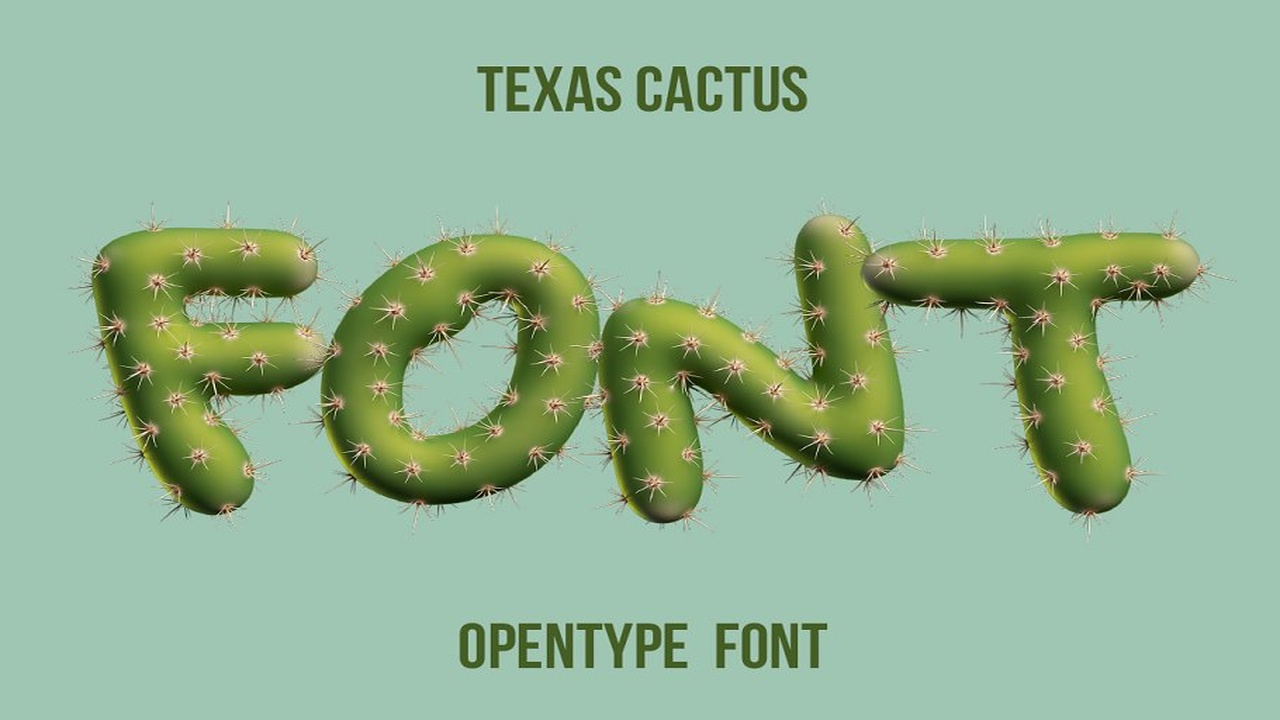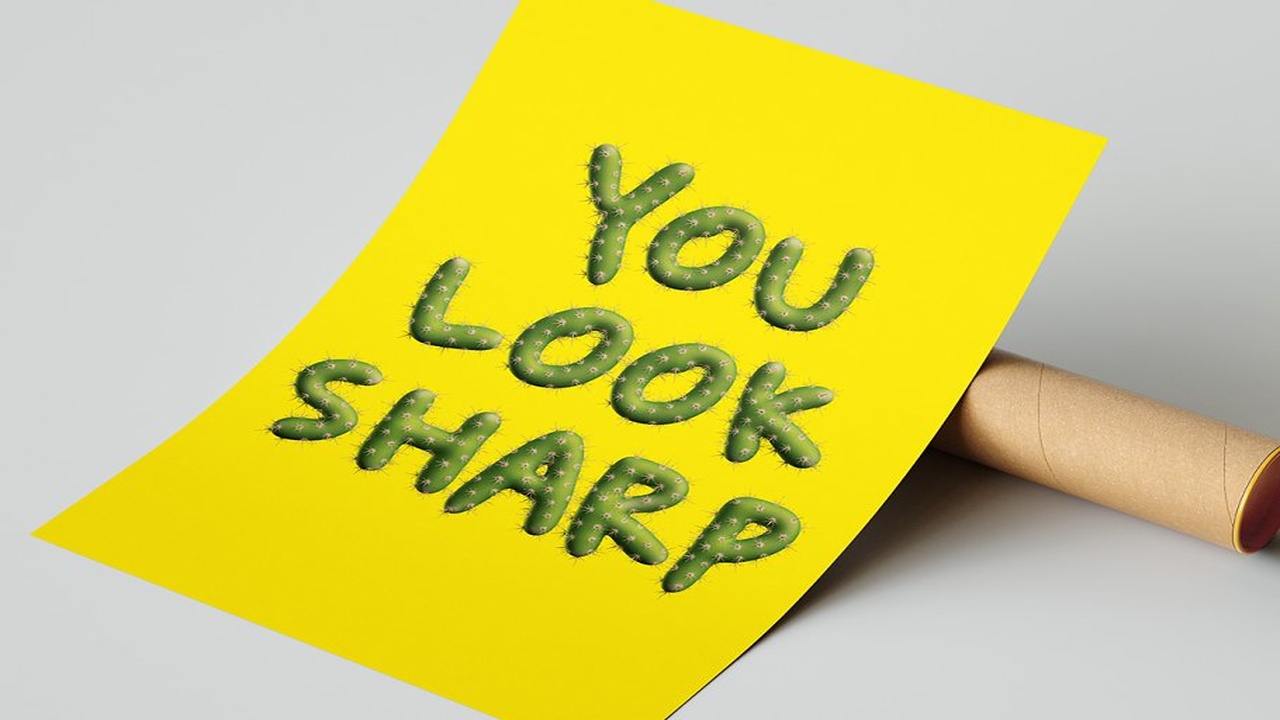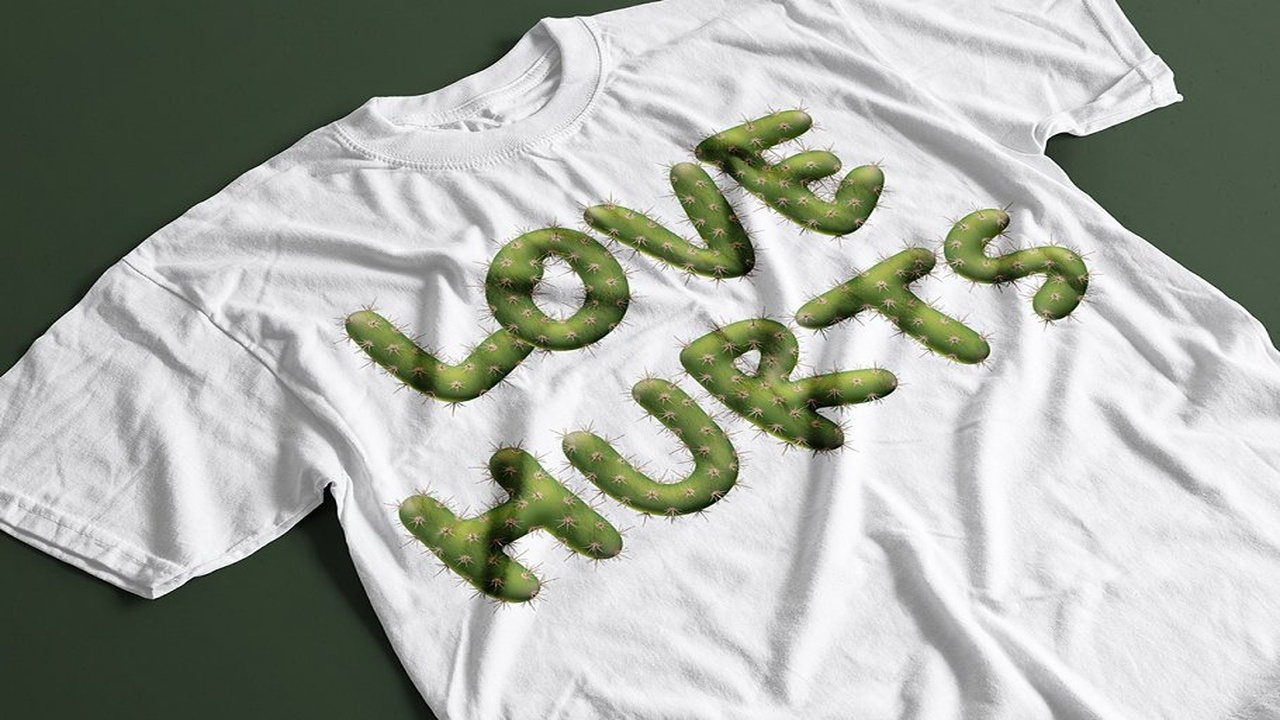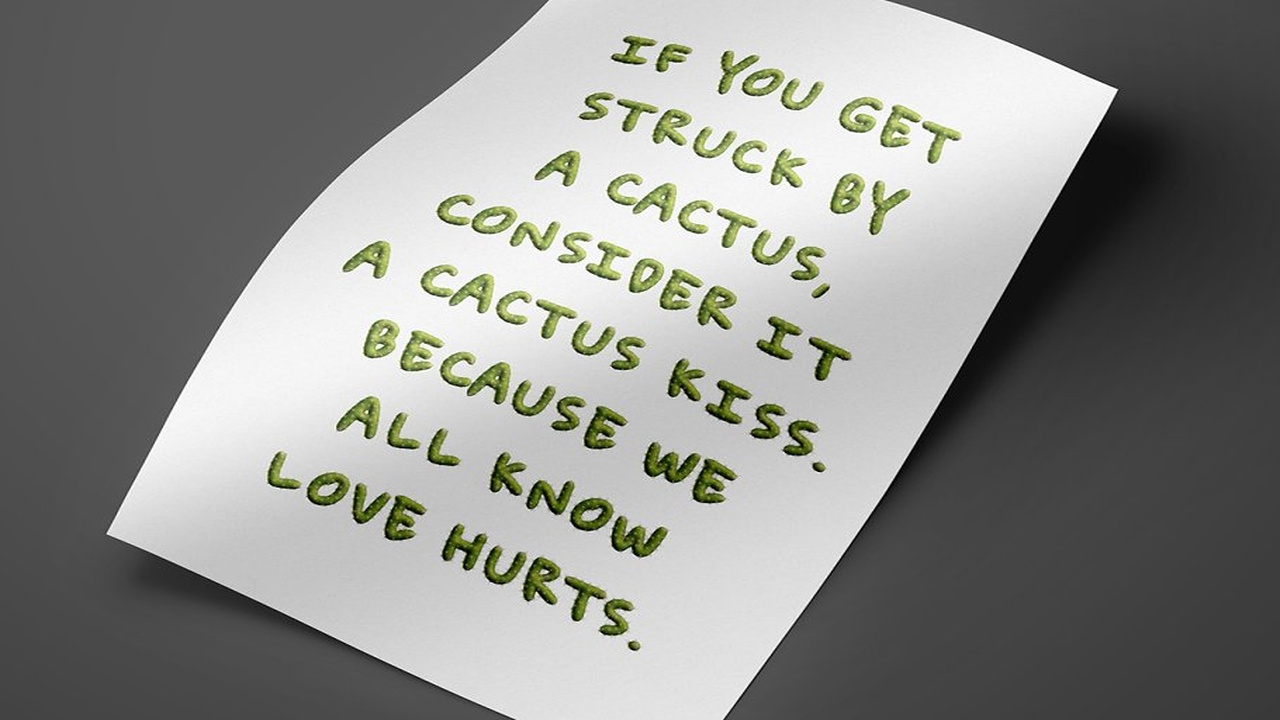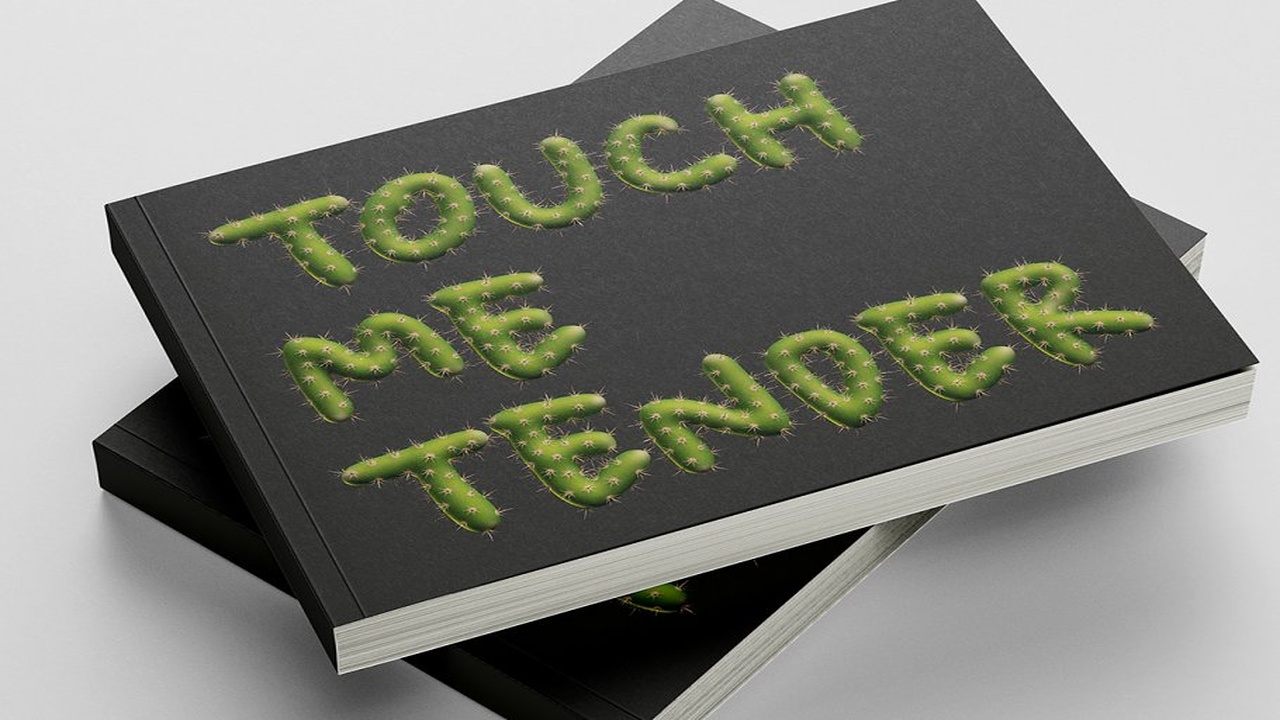
About the Texas Cactus Font
Each image has the high resolution size of 2000x3000px, This downloadable package contains 75 files, Texas Cactus SVG Font, A high definition OpenType-SVG font built-in 3D, Contains uppercase characters, numerals and basic punctuation, (Draw height roughly 800 pixels)
All letters and glyphs that comprises this font you can see on the preview, Letters : A B C D E F H I J L L M N O P Q R S T U V W X Y ZNumbers : 0 1 2 3 4 5 6 7 8 9Others : ! ? $ & % + – , PNG Letter set, All 75 characters of the Texas Cactus letter set are included as individual